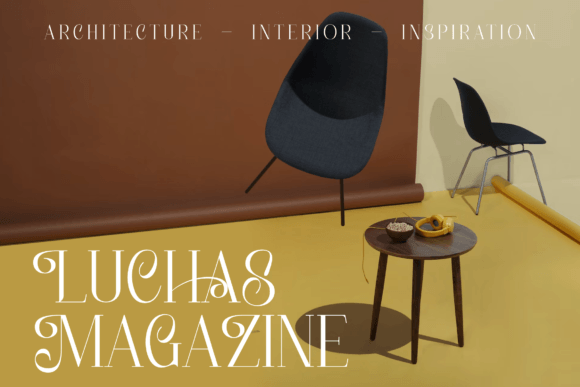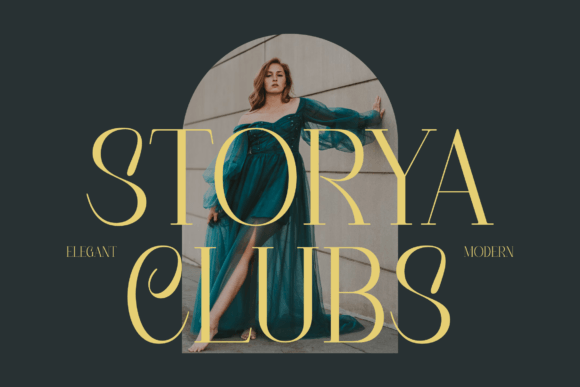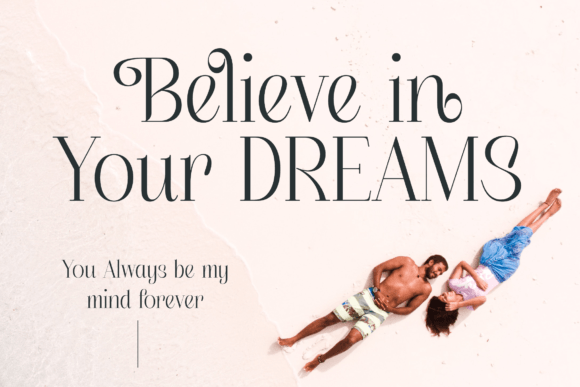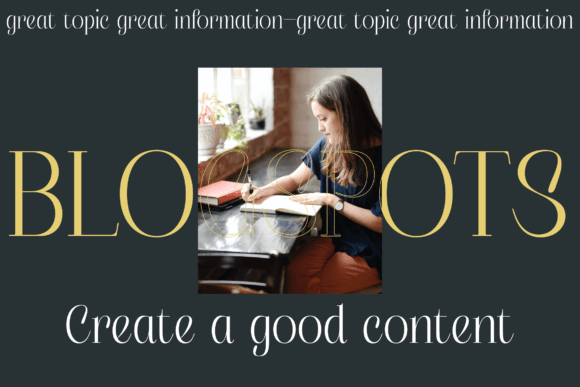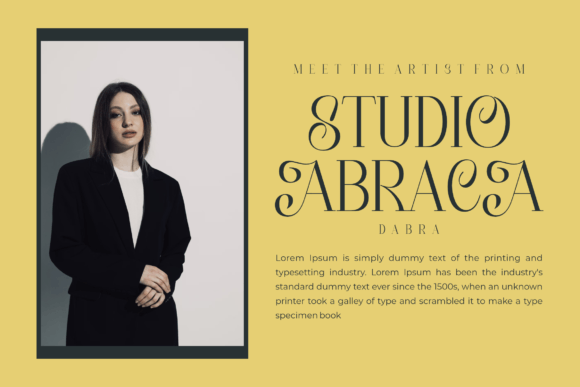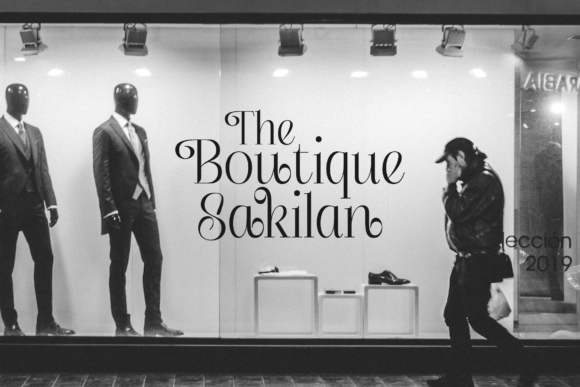
Introducing Askhora Font: The Epitome of Elegance and Sophistication
In the realm of typography, the right font can elevate a design from ordinary to extraordinary. For those seeking a typeface that exudes luxury, sophistication, and timeless elegance, look no further than Askhora Font. This modern and classic serif typeface is poised to revolutionize your design projects, whether you’re crafting an elegant logo, a book or movie title, a fashion brand’s identity, or a stylish magazine.
The Unique Style of Askhora Typeface
Askhora Typeface boasts its own distinct style, seamlessly blending modern flair with classic serifs. This harmonious fusion results in a font that is both contemporary and rooted in tradition. The serifs add a touch of sophistication, making it perfect for designs that demand a high level of elegance. The unique style of Askhora ensures that your work stands out, offering a fresh perspective in the world of typography.
The versatility of Askhora Font is one of its most compelling features. It’s not just limited to one type of project; rather, it can be utilized across a broad spectrum of design needs. Here are some of the areas where Askhora truly shines:
- Elegant & Luxurious Logos: Create a lasting impression with a logo that embodies luxury and class. Askhora Font, with its refined serifs and sleek lines, is ideal for brands aiming to convey sophistication and elegance.
- Book or Movie Title Design: For authors and filmmakers, presenting your work with a title that captures attention and conveys the essence of your story is crucial. Askhora offers a cinematic and literary feel, perfect for book covers and movie titles.
- Fashion Brand: Fashion is all about style, and typography plays a significant role in expressing a brand’s identity. Askhora Font can help fashion brands communicate their luxury and style ethos effectively.
- Magazine: Whether you’re launching a lifestyle, fashion, or luxury magazine, the font you choose sets the tone for your content. Askhora provides the perfect blend of modernity and classic appeal to attract your target audience.
- Clothes: For clothing brands, especially those focusing on luxury and bespoke items, product labels, packaging, and marketing materials require typography that speaks of quality and sophistication. Askhora Font fits the bill perfectly.
- Lettering and Quotes: For designers who specialize in lettering or creating inspirational quote posts, Askhora offers a stylish and legible option that enhances the impact of your words.
Why Choose Askhora Font?
Choosing Askhora Font for your design projects comes with numerous benefits:
- Versatility: Its wide range of applications makes it a valuable addition to any designer’s toolkit.
- Elegance: The font’s classic serifs and modern twists provide an unmatched level of elegance.
- Legibility: Despite its luxurious feel, Askhora maintains high legibility, making it suitable for both headings and body text.
- Uniqueness: Stand out from the crowd with a typeface that brings a fresh yet timeless aesthetic to your designs.
Askhora Font is more than just a typeface; it’s a design statement. Its perfect blend of modernity and classic elegance makes it an indispensable asset for designers aiming to create luxurious, sophisticated, and engaging content. Whether you’re working on a high-end brand identity, a literary masterpiece, or a stylish magazine, Askhora ensures your project communicates its message with unmatched style and clarity. Elevate your designs with the refined beauty of Askhora Font and leave a lasting impression on your audience.